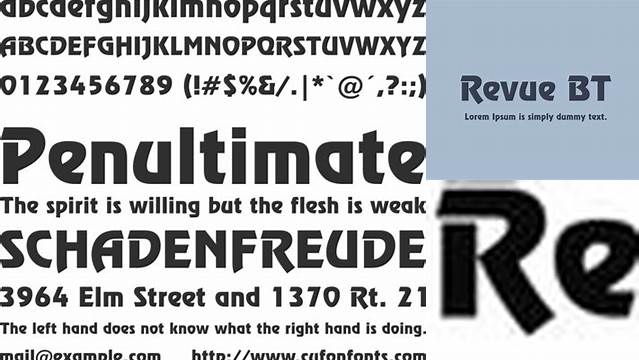
Are you on the hunt for the perfect font to spice up your designs, guys? Look no further because we're diving deep into the world of the Revue BT font free download! This versatile typeface is a real gem, offering a blend of elegance and readability that can elevate your projects from bland to brilliant. Whether you're a seasoned designer or just starting out, understanding the ins and outs of the Revue BT font and how to snag it for free is crucial. This guide will be your best friend to navigate the download process, understand its features, and inspire you with creative ways to use it. So, buckle up, and let's get started!
Understanding the Allure of Revue BT Font
Revue BT font isn't just any font; it's a statement. Its distinct characteristics make it a favorite among designers and creatives across the board. First off, its design has a certain timeless quality, easily fitting into both modern and classic aesthetics. The font's clean lines and balanced structure make it incredibly readable, a key factor in any design. You can use it across a variety of projects, from website headers to body text, because it works equally well. Its subtle curves and graceful letterforms add a touch of sophistication, making your work stand out from the crowd.
This font is more than just a pretty face; it also offers great versatility. The Revue BT font family usually includes a range of weights and styles – think light, regular, bold, italic, and more. This variety gives you flexibility, allowing you to create visual hierarchy and emphasis within your designs. Want to highlight a particular headline? Use the bold version. Need to add a touch of flair? Opt for the italic style. With Revue BT, you've got the tools to create a well-structured, visually appealing layout. The legibility of the font is another major advantage. In a world of endless digital distractions, making sure your text is easy to read is more important than ever. Revue BT’s design prioritizes readability, ensuring your message gets through clearly. It’s not just about looking good; it’s about communicating effectively. This font is a fantastic choice for projects where clarity is paramount.
Beyond the aesthetics and versatility, the right font can transform how people perceive your work. Revue BT has that unique ability to convey a sense of professionalism and creativity. It’s a subtle way of communicating your brand's personality and values. The way you use a font can reflect how you think about design. It can also demonstrate how you think about your audience. The right font choice can make a big difference in how successful your project is!